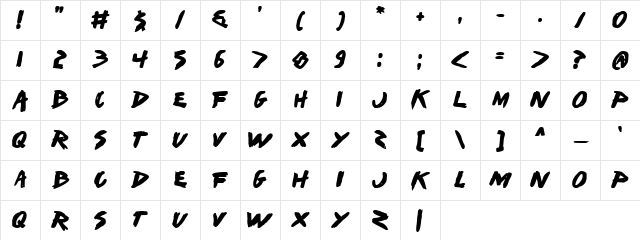
Complete I Want My TTR! (Bold) Bold glyph index. Displaying only characters natively supported by I Want My TTR! (Bold) Bold font.
I Want My TTR! (Bold) is a composed and adaptable typeface that performs quietly and consistently across a wide range of design contexts. Its bold stroke weight gives it real presence on the page.